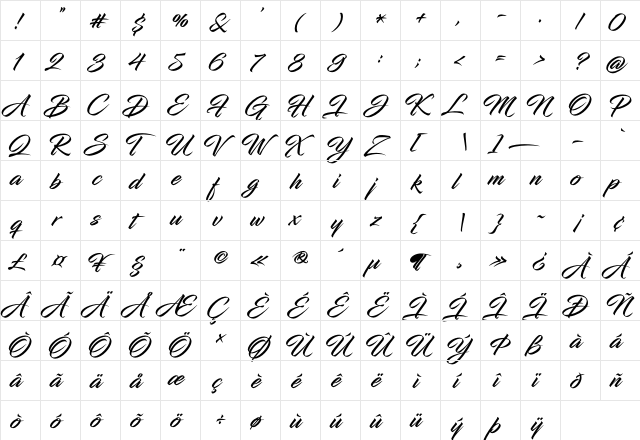
Infinite Stroke Condensed Bolder
| Foundry | Youssef Habchi |
| Designer | Youssef Habchi |
Design Context for Infinite Stroke Typeface
Infinite Stroke is a composed and adaptable typeface that performs quietly and consistently across a wide range of design contexts. Its bold stroke weight gives it real presence on the page. The condensed width makes it efficient for tight spaces without sacrificing legibility.
Pro Tip: Use Infinite Stroke in both headline and body roles to test its range before committing to a single application.